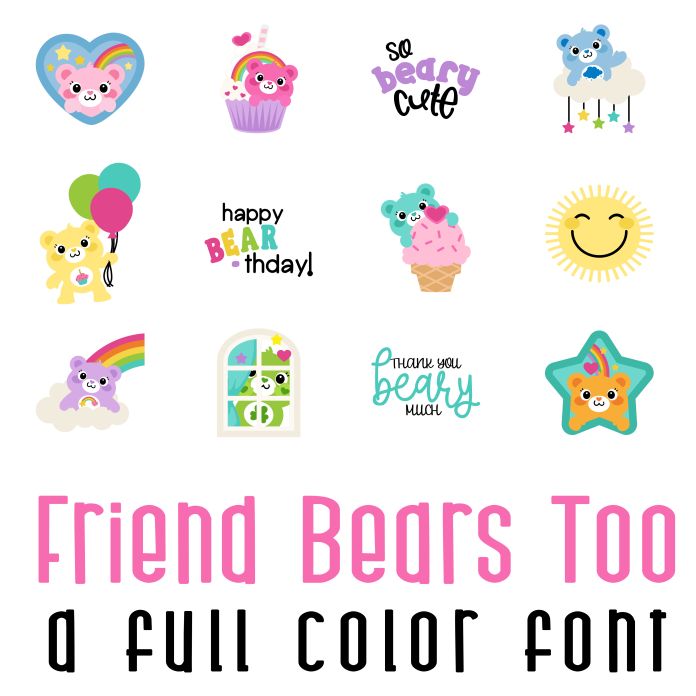
This beautiful full color font features 26 adorable bears in rainbows and clouds. Perfect for cards, crafts, gifts, decor, scrapbook pages, planner stickers, and more!